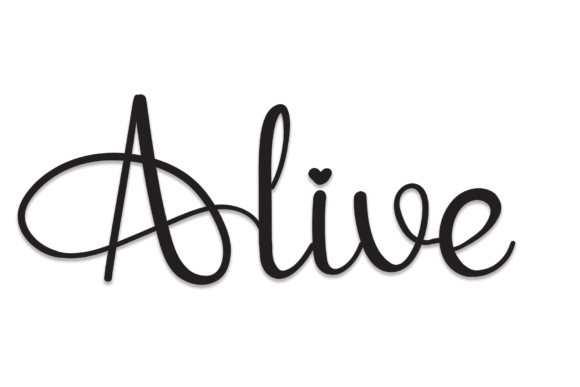
The Alive Font: A Fun and Friendly Companion for Your Creative Projects
I still remember the time I was working on a greeting card design project, and I just couldn’t seem to find the right font. My client wanted something fun, friendly, and approachable, but everything I tried seemed either too boring or too over-the-top. That’s when I stumbled upon the Alive font, and it instantly became my go-to. In this article, I’ll share my experience with this wonderful font, its features, and how you can make the most of it in your creative projects.
An Honest Review of the Alive Font
So, what makes the Alive font so special? Let’s dive into the good stuff and a few quirks I’ve discovered.
What I Love About Alive Font
• ✨ Fun and Friendly Vibe: The Alive font has a super approachable and cheerful feel to it, making it perfect for projects that need a bit of personality.
• ✅ Versatility: Whether you’re working on crafts, digital designs, presentations, or greeting cards, this font adapts beautifully to different contexts.
• 💫 Ease of Use: It’s incredibly easy to read and write with, even at smaller sizes, which is a huge plus for any font.
While the Alive font is fantastic, there are a couple of things to keep in mind:
• 🤔 Limited Formality: Given its playful nature, the Alive font might not be the best choice for projects requiring a high level of formality or professionalism.
• ⚠️ Overuse: As with any font, using Alive excessively across a long piece of text or multiple elements can make your design feel less special.
The Backstory Behind Alive Font
The Alive font was designed with the intention of bringing a spark of joy and friendliness into the world of typography. While the specific designer behind Alive might not be widely known, it’s clear that the goal was to create a font that feels approachable and lively, suitable for a wide range of creative projects.
Q: Is the Alive font suitable for professional projects?
A: While the Alive font is incredibly versatile, its playful nature might not make it the best fit for highly formal or professional projects. However, it can add a nice personal touch to creative and innovative professional endeavors.
Q: Does the Alive font support OpenType features?
A: Yes, the Alive font supports OpenType features, which means you can access a variety of glyphs and stylistic alternates to enhance your typography.